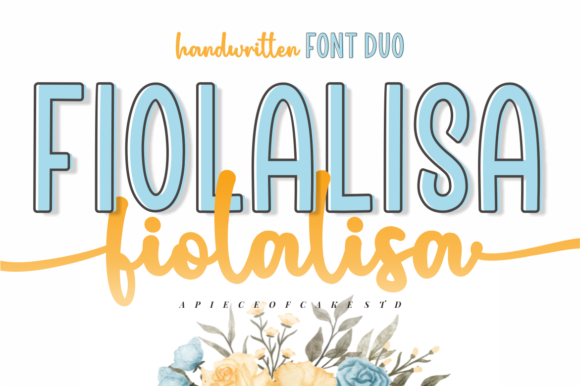
Welcome to the world of Fiolalisa Font, where joyous designs dance and stories flow in a captivating script. This extraordinary duo, consisting of the Fiolalisa Regular and Fiolalisa Script fonts, will elevate your creations to new heights of charm and sophistication.
Crafted with the utmost care and inspired by the sweet delight of cake, Fiolalisa is a font family that's anything but ordinary. Its delicate strokes and whimsical flourishes will add a touch of celebratory charm to your projects, making them stand out from the crowd.
Fiolalisa Regular exudes a classic and refined elegance, with its clean lines and timeless appeal. This font is perfect for adding a touch of understated sophistication to your designs, whether you're creating invitations, logos, or social media posts. Its versatility makes it a go-to font for a wide range of projects.
Fiolalisa Script, on the other hand, is a captivating and expressive font that dances across the page with carefree abandon. Its playful curves and charming personality are sure to make your designs shine. Whether you're crafting wedding invitations, greeting cards, or eye-catching posters, this font will add a touch of magic that's impossible to resist.
Together, Fiolalisa Regular and Fiolalisa Script form a harmonious partnership, effortlessly complementing each other to create designs that are both cohesive and visually stunning. Use them in combination for logos and branding, or let them shine individually for headlines, subheadings, and body copy.